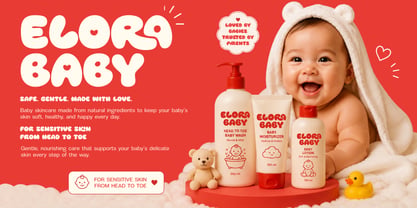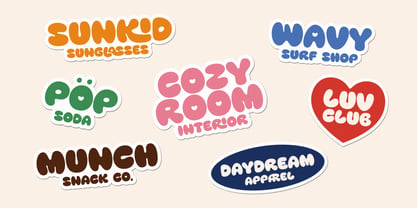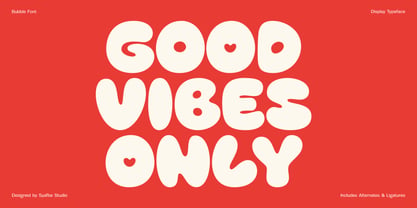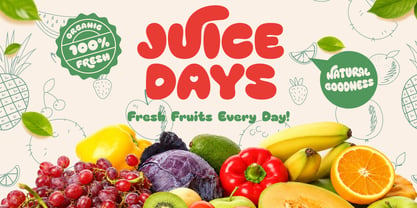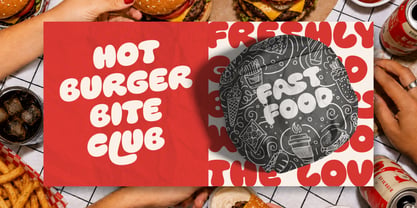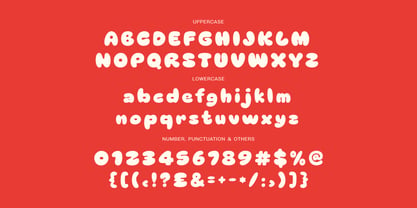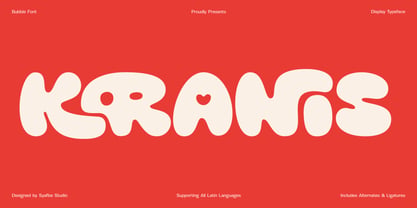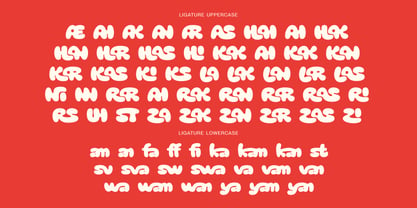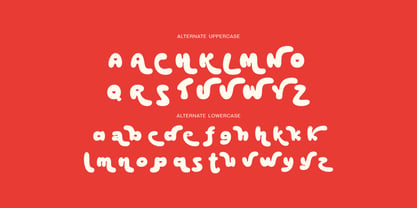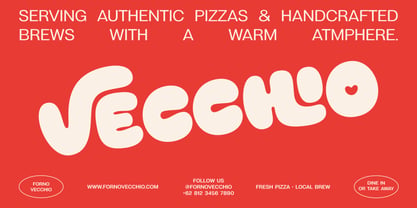
Karanis
by Syafbe
Karanis is a playful and vibrant bubble display font designed to bring instant personality and charm to your creative projects. With its bold rounded shapes, smooth curves, and joyful character, Karanis creates a fun visual experience that feels fresh, friendly, and unforgettable. Every letter is carefully crafted to deliver a unique style that captures attention and adds a distinctive touch to your designs.
Perfect for brands that want to stand out, Karanis is made for eye-catching logos, packaging, posters, social media graphics, merchandise, advertisements, and creative branding projects. Whether you are creating a trendy food identity, a lifestyle brand, a playful campaign, or a modern retro design, Karanis helps transform ordinary words into a memorable visual statement.
Packed with creative features including uppercase, lowercase, alternate characters, ligatures, numbers, punctuation, and multilingual support, Karanis gives designers endless possibilities to explore. Bring your ideas to life with a typeface that feels bold, cheerful, and full of character — a perfect choice for designs that want to make an impact.
Designers: Syafwan Mus
Foundry: Syafbe